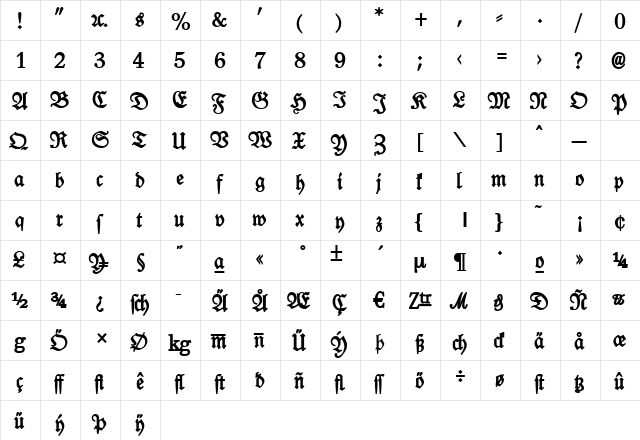
Leipzig Fraktur Bold Regular
| Foundry | Peter Wiegel, CAT Wolgast |
| Designer | Peter Wiegel |
Design Context for Leipzig Fraktur Bold Typeface
Leipzig Fraktur Bold channels the dramatic heritage of Fraktur and Gothic scripts, bringing a sense of historical gravitas to any design. The heavy weight commands attention and anchors typographic hierarchies.
Well-suited to band logos, craft beer branding, tattoo lettering, and heritage-themed identities.
Font Pairing: Pair with a clean neutral sans-serif for body copy to let Leipzig Fraktur Bold's character lead without overwhelming the composition.
Pro Tip: Use Leipzig Fraktur Bold sparingly at large sizes. Even a single word set in blackletter can define the visual register of an entire design.